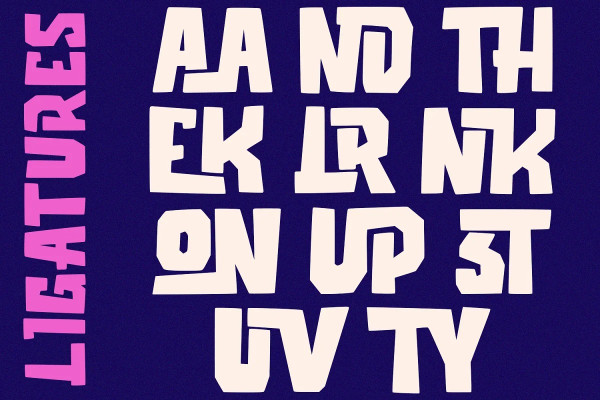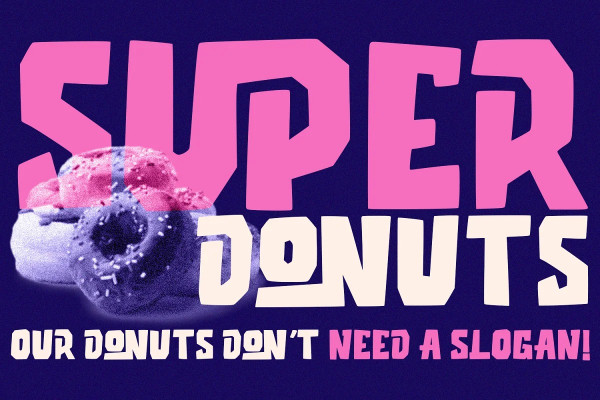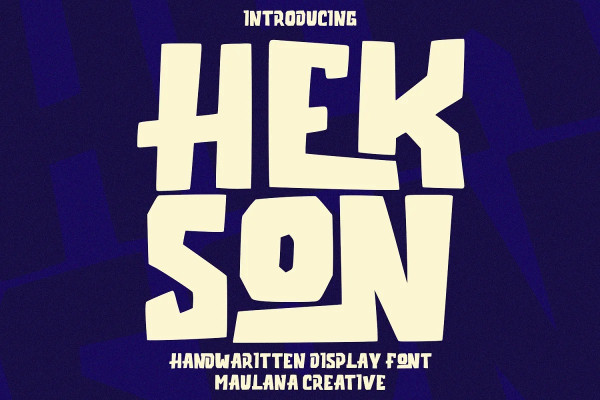
Hekson Display Font
Hekson Display Font, is a block handwritten display font. With bold stroke, fun character with a bit of ligatures. To give you an extra creative work. Hekson Display font support multilingual more than 100+ language. This font is good for logo design, Social media, Movie Titles, Books Titles, a short text even a long text letter and good for your secondary text font with sans or serif. Make a stunning work with Hekson font.